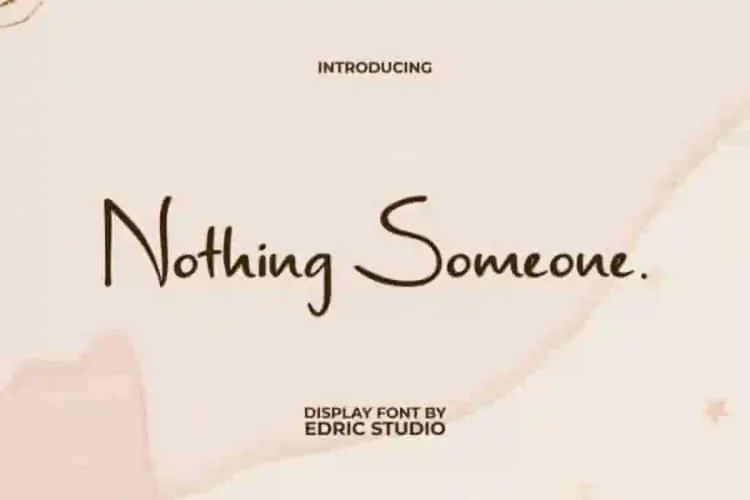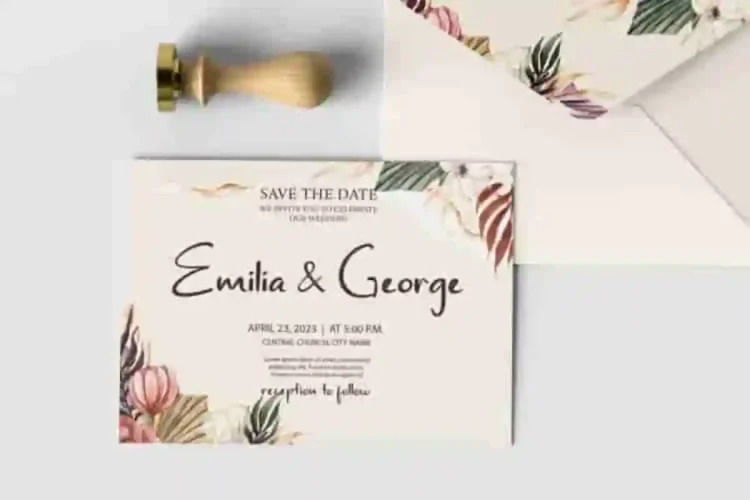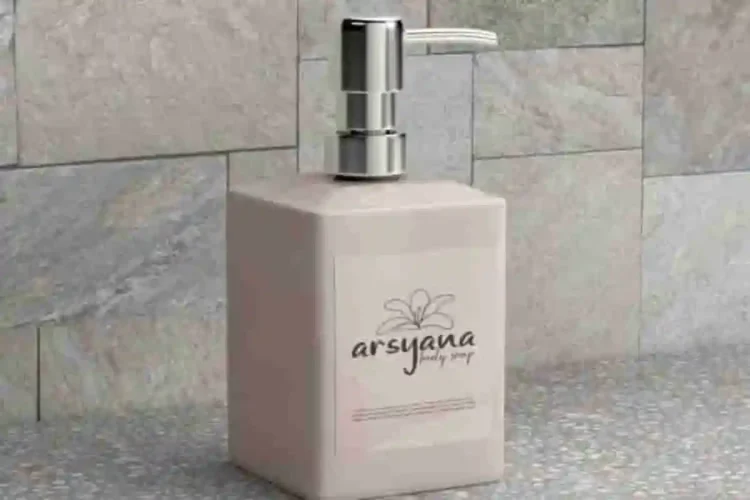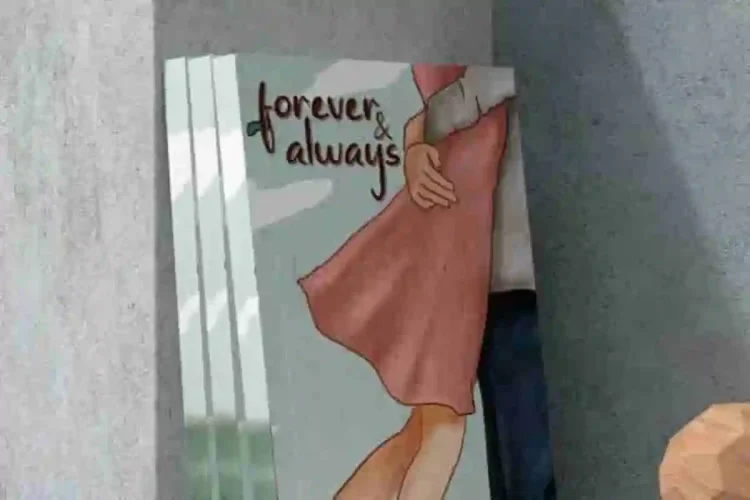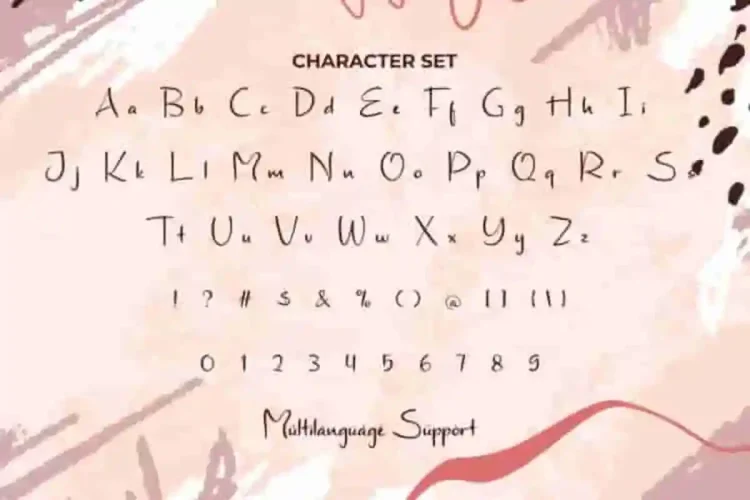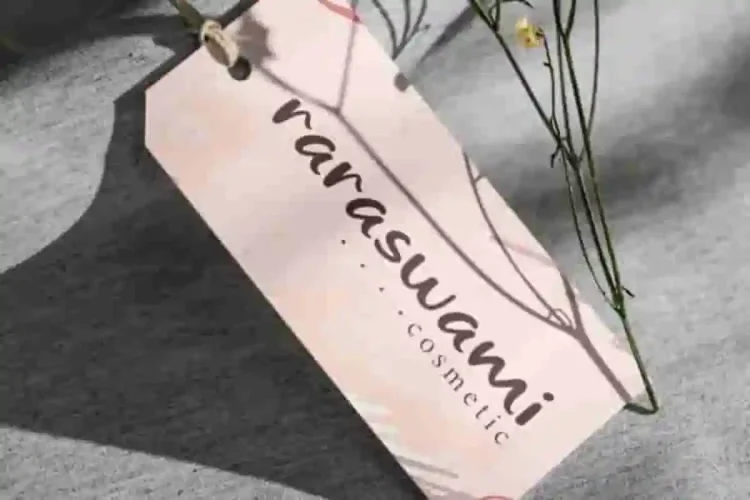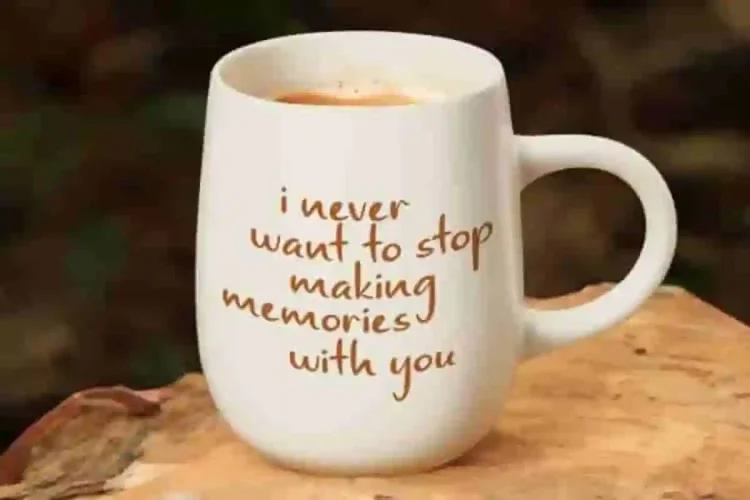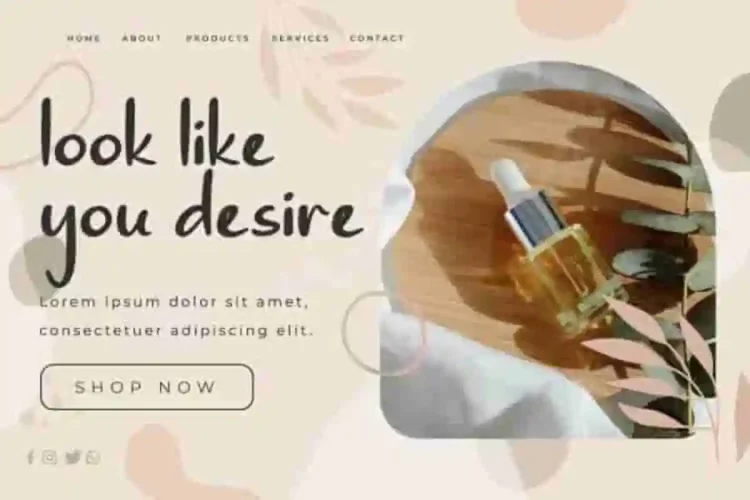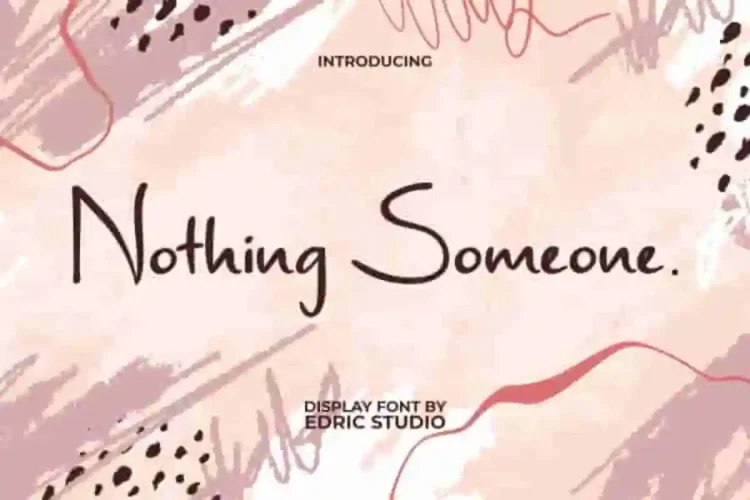
Nothing Someone Display Handwritting Font
Nothing Someone Display Font is a friendly and attractive handwritten script font. Perfect for banners, brand identity, covers, envelope, greeting cards, headers, invitation, label tag, logos, mockup, product packaging, quotes, stationery, sticker, template, title, watermark, website, and many more.
Nothing Someone Display Handwritting Font contains a complete set of Basic Uppercase and Lowercase Characters, Numbers, Punctuation, and Symbols. This display font has an irregular thickness created naturally and looks charming which demands a personal touch and subtlety. Perfect for beauty product, cosmetologist, event organizer, fashion, graphic designers, home furniture, spa salon, wedding, writer, and many more.